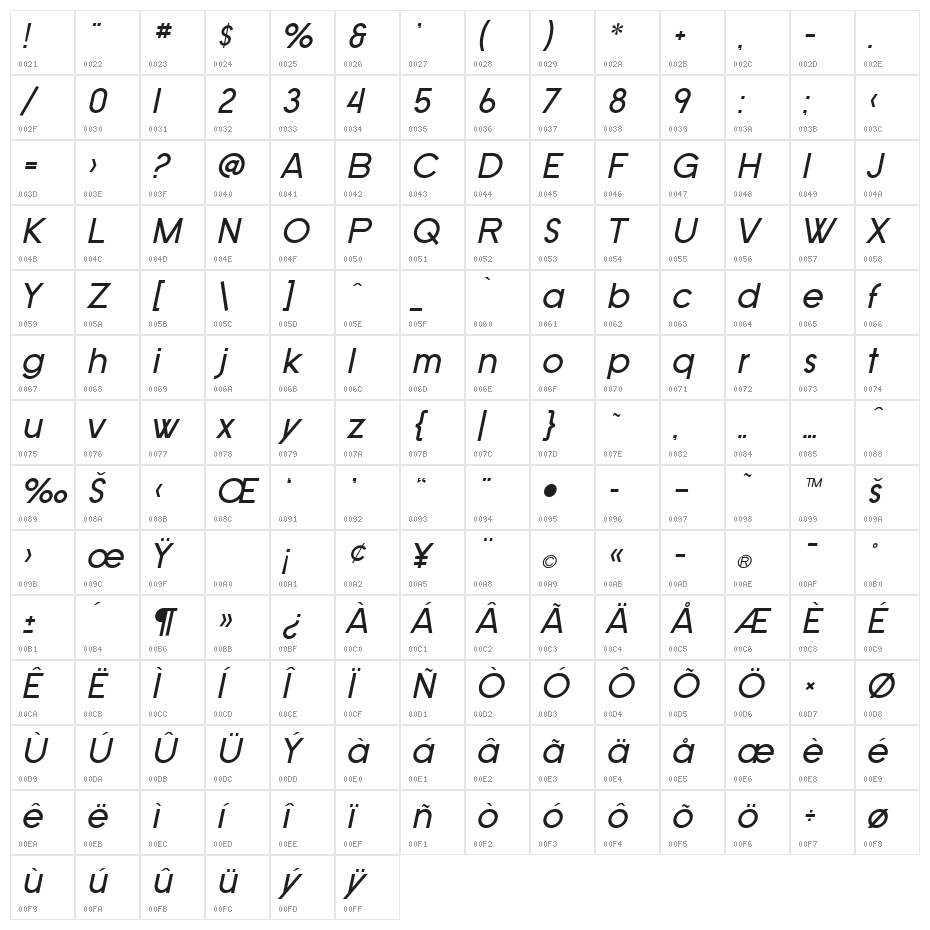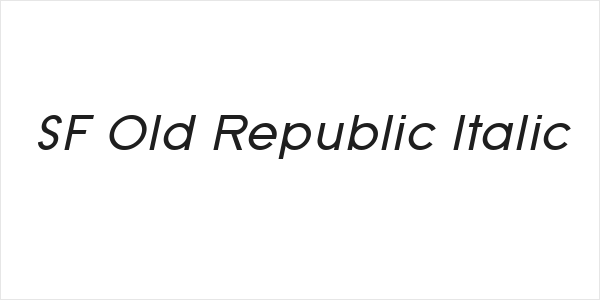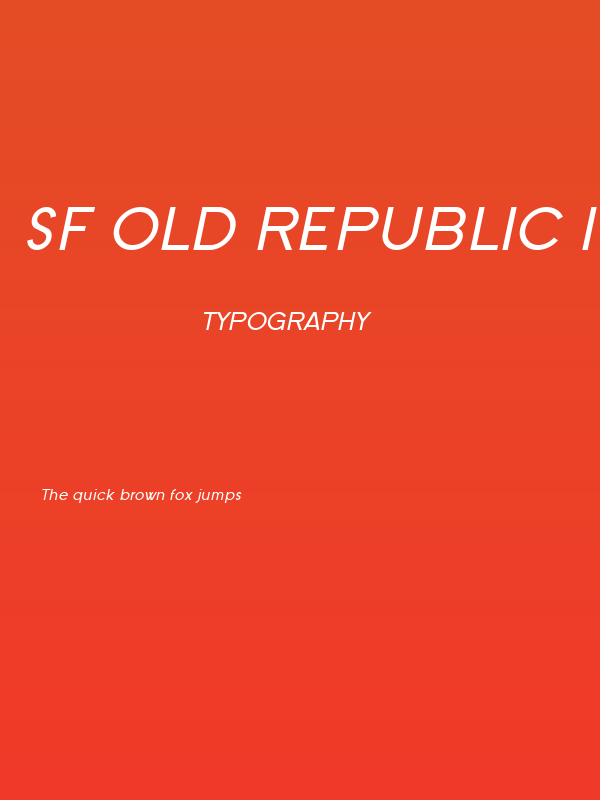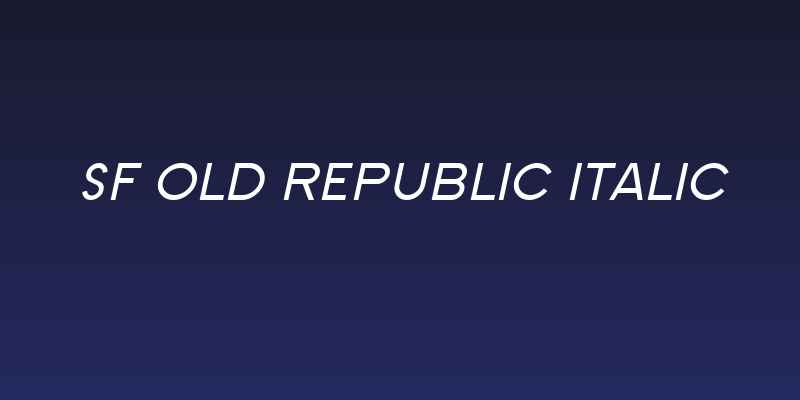
SF Old Republic Italic Font
SF Old Republic Italic Description
This font features a sleek, italicized style that conveys a sense of modernity and elegance. The characters are slightly slanted, giving a dynamic and forward-moving appearance. The strokes are consistent and smooth, with a medium contrast that enhances readability while maintaining a stylish look. The font's design is clean and uncluttered, making it suitable for a variety of applications. Its geometric shapes and uniformity provide a professional and polished aesthetic, ideal for both digital and print media.
| Use Case | Headlines, Logos, Editorial design |
| Proposed Projects | Ideal for branding, advertising, and editorial design projects. Suitable for use in logos, headlines, and promotional materials. |